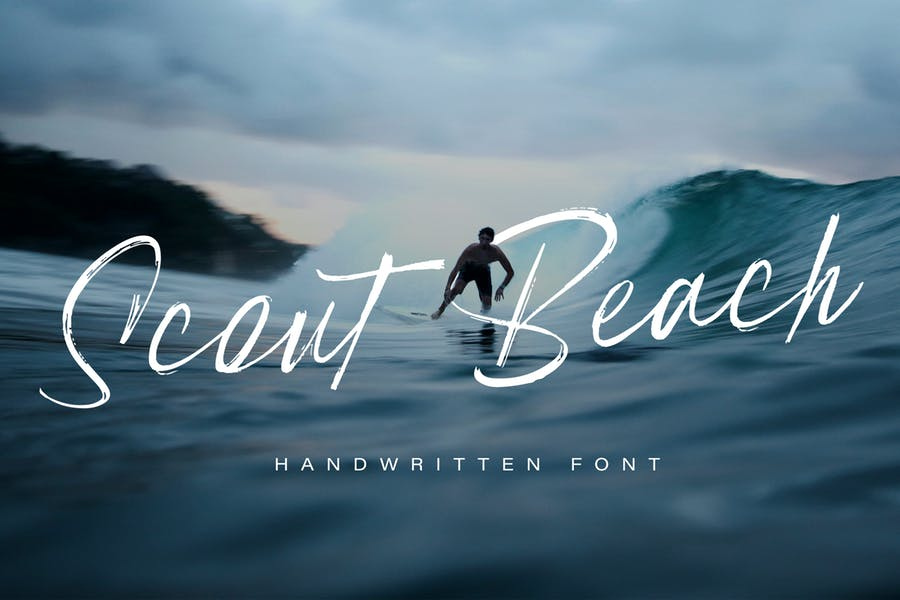
Scout Beach - Handwritten Brush Font
Scout Beach Handwritten Brush Font is perfect for coastal resort branding, beach vacation marketing, surf shop signage, seaside restaurant menus, ocean adventure campaigns, beachfront wedding invitations, tropical lifestyle brands, beach house rental materials, and laid-back coastal designs.
What makes Scout Beach Handwritten Brush Font exciting is its adventurous coastal character that captures the free-spirited exploration and sun-soaked relaxation of beach life through authentic hand-painted letterforms that seem written in the sand by ocean breezes. The font features organic brush strokes with beachy textures that evoke the carefree discovery of hidden coves and the relaxed authenticity of coastal living. Its adventurous aesthetic and beach authenticity make it perfect for brands that want to communicate coastal exploration, laid-back adventure, and the refreshing freedom that comes with discovering life's simple pleasures along the shoreline while creating memorable experiences that transport audiences to their favorite beach memories.
Scout Beach Handwritten Brush Font family includes various coastal brush styles such as Regular, Bold, and weathered variations, often featuring beach-inspired alternates and oceanic decorative elements. The family may include nautical symbols, coastal ornaments, and sandy brush ligatures that enhance the font's beachy aesthetic, providing designers with comprehensive options for creating authentic typographic compositions that capture the essence of coastal exploration and beach adventure.
This adventurously coastal typeface has gained recognition among beach brands and coastal tourism businesses seeking authentic handwritten typography solutions that reflect seaside values and beach exploration spirit. Scout Beach Handwritten Brush Font Free Download provides an excellent opportunity to explore with this beachy font before investment. The font's character set includes coastal symbols and beach-inspired glyphs that work perfectly for tourism and coastal lifestyle industry applications. Whether you're designing for beach resorts, surf companies, or coastal adventure tours, Scout Beach Handwritten Brush Font delivers the beachy authenticity your project requires. Its versatile nature makes it suitable for various coastal applications including beach clubs, ocean conservation groups, coastal real estate companies, and seaside lifestyle brands, ensuring your typography choices communicate coastal freedom and beach adventure while creating memorable brand experiences that celebrate the joy of beach exploration and the endless possibilities of coastal discovery through its distinctively beachy and authentically coastal visual character.